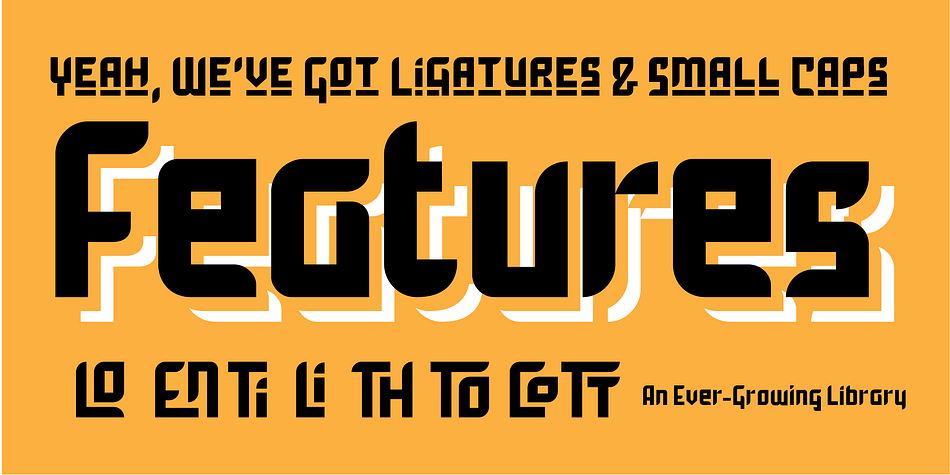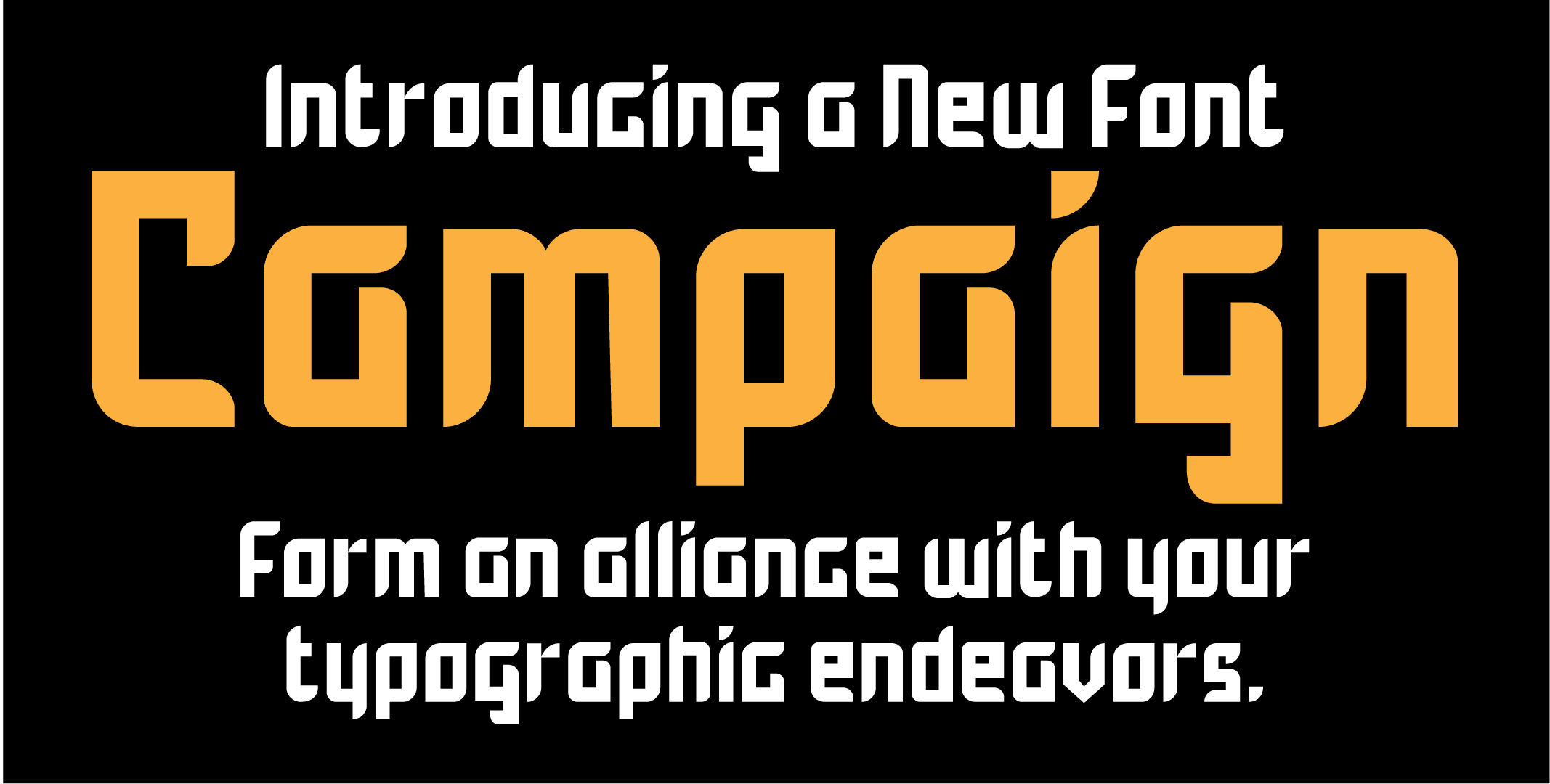
Campaign
Designed by Daniel Martinez, Campaign is a display sans font published by Interrobang Type.
Created originally as the natural letter-set of a work of activism, this set of characters conveys with sharp decisiveness and deceptive nuance a deep philosophical bent. Just as well, it can speak with strength and conviction. It is absolutely a display font, but is surprisingly legible at medium text sizes.
As with many of my display fonts, it’s a logotype maker. If WT Iron is too funky for you, Campaign is ready to step in with power and style.
This font is a collaboration with Daniel Martinez, whose lettering for the Ali for Amarillo logo provided the DNA for Campaign.